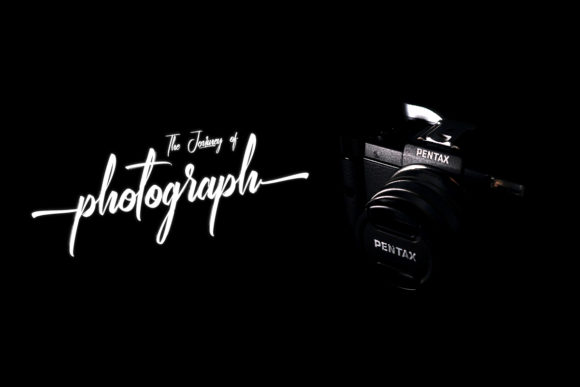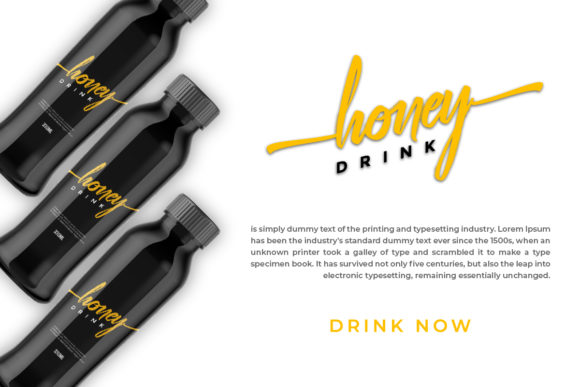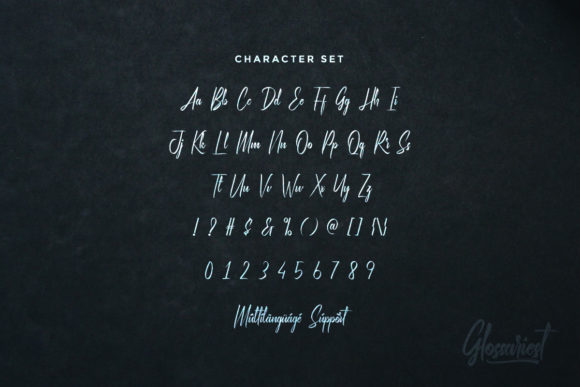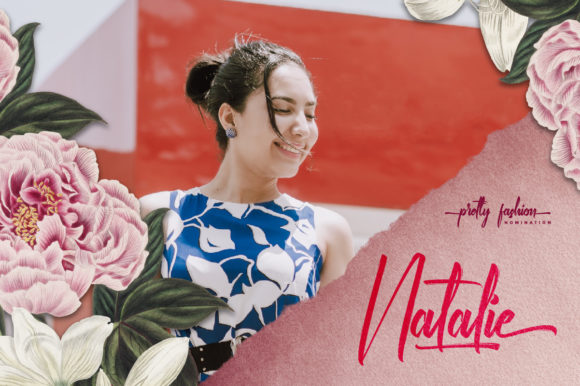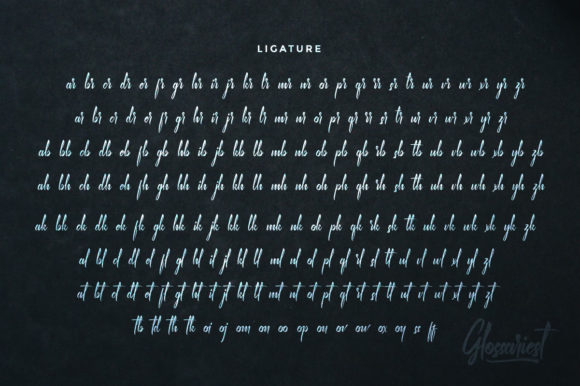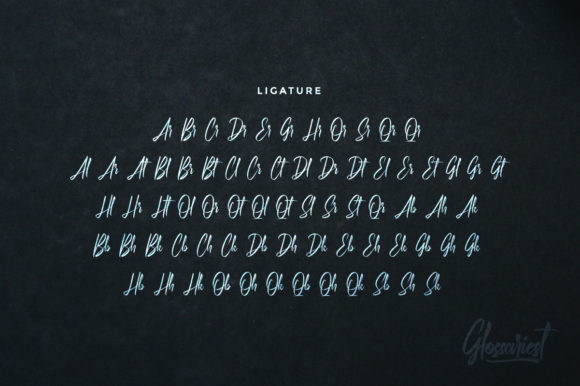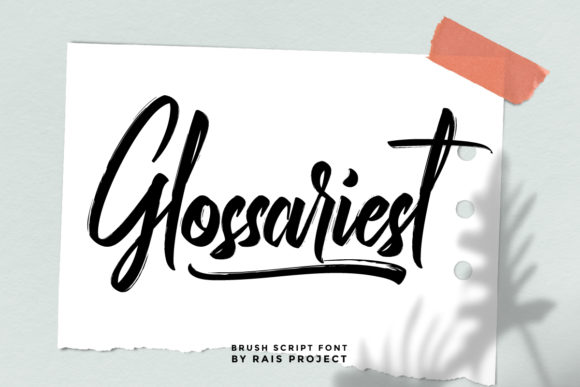
Introducing Glossariest Font: Elevate Your Designs with a Stylish and Bold Handwritten Touch
In the world of typography, a font can make or break a design. For designers and crafters looking to add a touch of style and sophistication to their projects, Glossariest Font is an excellent choice. This gorgeous and bold handwritten font is crafted to give your headlines and logotype projects a confident and dynamic look that’s sure to turn heads.
The Characteristics of Glossariest Font
Glossariest Font boasts a unique set of characteristics that make it stand out from other fonts. Its bold and handwritten style exudes a sense of strength and confidence, making it perfect for designs that require a touch of personality. The font’s dynamic and stylish appearance adds a nostalgic character to your designs, giving them a distinctive and eye-catching look.
What Makes Glossariest Font So Special?
So, what sets Glossariest Font apart from other fonts? Here are a few reasons why designers and crafters love this font:
- Unique and Handwritten Style: Glossariest Font features a one-of-a-kind handwritten style that’s both elegant and bold. Its unique character set ensures that your designs will stand out from the crowd.
- Highly Versatile: Whether you’re working on a logo, headline, or any other design project, Glossariest Font is an excellent choice. Its versatility makes it suitable for a wide range of applications.
- Easy to Read: Despite its bold style, Glossariest Font is surprisingly easy to read. This makes it perfect for designs that require a clear and concise message.
- Nostalgic Character: Glossariest Font has a distinctive nostalgic character that adds a touch of warmth and personality to your designs.
How to Use Glossariest Font in Your Designs
Using Glossariest Font in your designs is easy. Here are a few tips to get you started:
- Pair it with Other Fonts: Glossariest Font pairs well with other fonts, making it easy to create visually appealing combinations.
- Experiment with Different Sizes: Glossariest Font looks great in various sizes, from large headlines to smaller body text.
- Use it for Logos and Headlines: Glossariest Font is perfect for logos, headlines, and other attention-grabbing elements.
Why Designers and Crafters Love Glossariest Font
Designers and crafters love Glossariest Font for several reasons:
- Time-Saving: With Glossariest Font, you can create stunning designs in no time. Its bold and stylish appearance ensures that your designs will stand out without requiring hours of fine-tuning.
- High-Quality: Glossariest Font is a high-quality font that’s designed to deliver exceptional results. Its clear and crisp appearance ensures that your designs will look professional and polished.
- Unique and Creative: Glossariest Font offers a unique and creative way to express yourself through your designs. Its bold and handwritten style ensures that your designs will be anything but ordinary.
In conclusion, Glossariest Font is an exceptional choice for designers and crafters looking to add a stylish and bold touch to their projects. Its unique and handwritten style, versatility, and nostalgic character make it an excellent addition to any design. Whether you’re working on a logo, headline, or any other design project, Glossariest Font is sure to deliver impressive results.